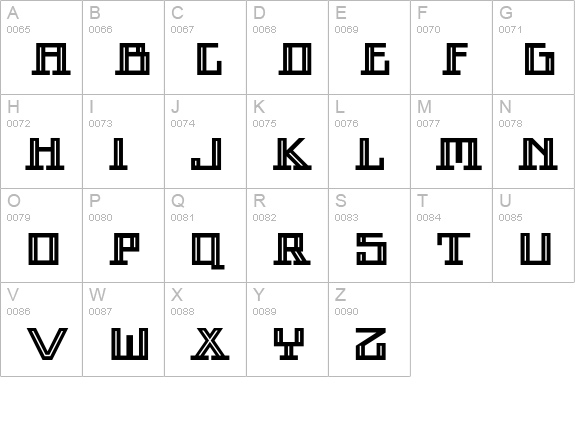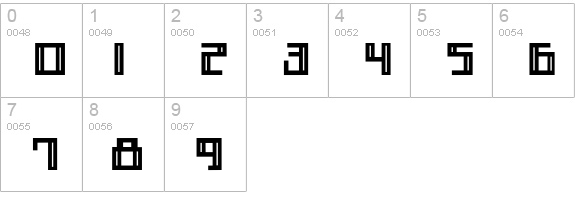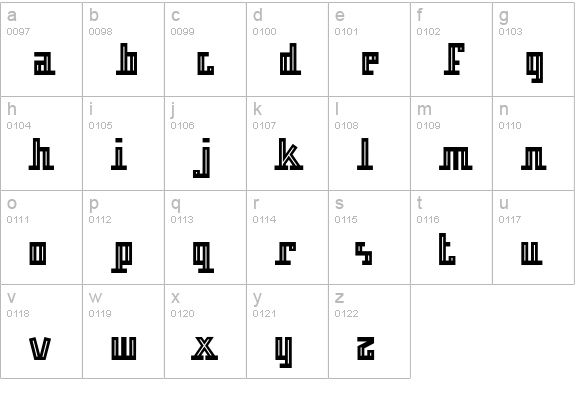
ArcturusInline Font Details
ArcturusInline font is a sleek and modern typeface that exudes elegance and sophistication. With its clean lines and stylish design, this font is perfect for a variety of design projects, from branding to advertising to packaging. The unique inline style adds a touch of flair and visual interest to any text, making it stand out from the crowd. Best of all, ArcturusInline font is completely free to download at FontsMarket.com. Whether you're a designer looking to add a fresh new font to your collection or a business owner in need of a standout font for your marketing materials, ArcturusInline is the perfect choice. Download it today and elevate your designs with this stunning and versatile typeface.